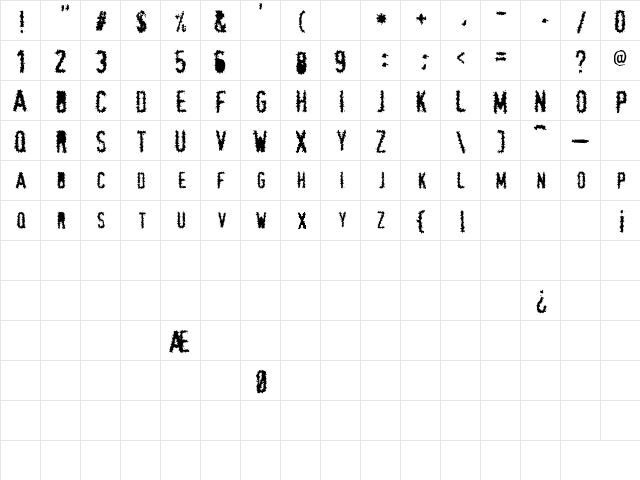
Wraith Lite Regular
Design Context for Wraith Lite
Wraith Lite is a composed and adaptable typeface that performs quietly and consistently across a wide range of design contexts.